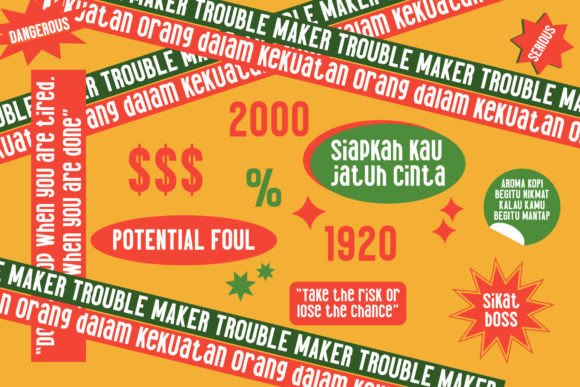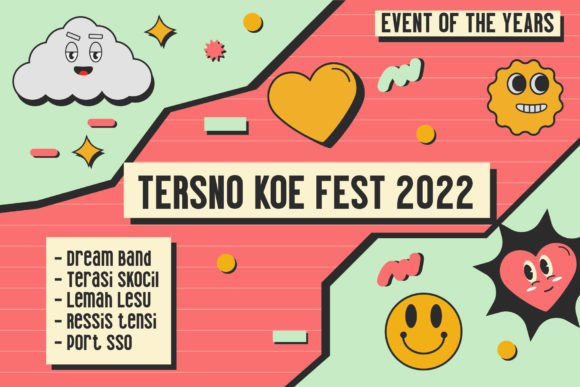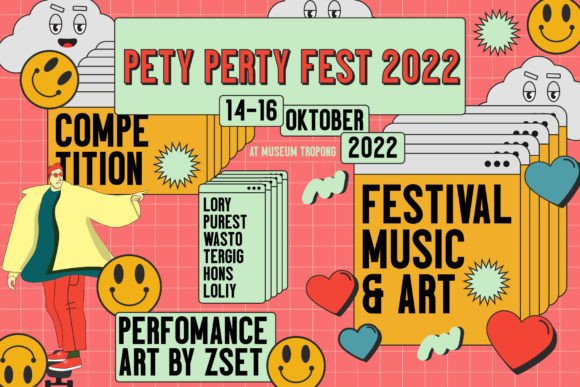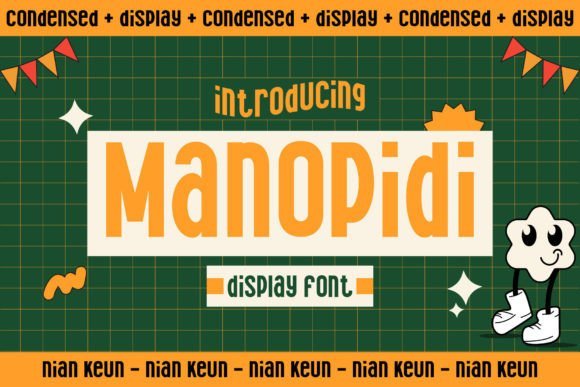
Introduction to Manopidi Font
Manopidi is a sans serif font with a condensed style that is firm with sharp corners.
This font is conceptualized in a retro style by carrying a bold character On the other hand, this font can also be used for headlines or any part of the project you are working on.
Manopidi Font offers exceptional quality and versatility, making it a valuable addition to your design toolkit. Whether you’re creating for personal projects or commercial use, Manopidi Font delivers professional results.